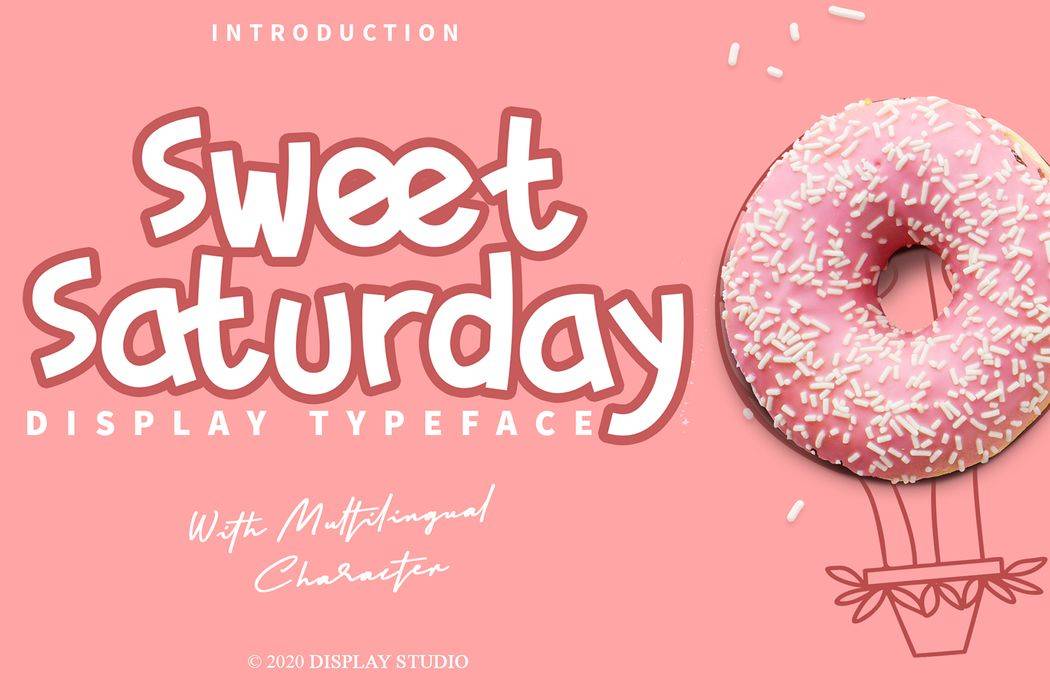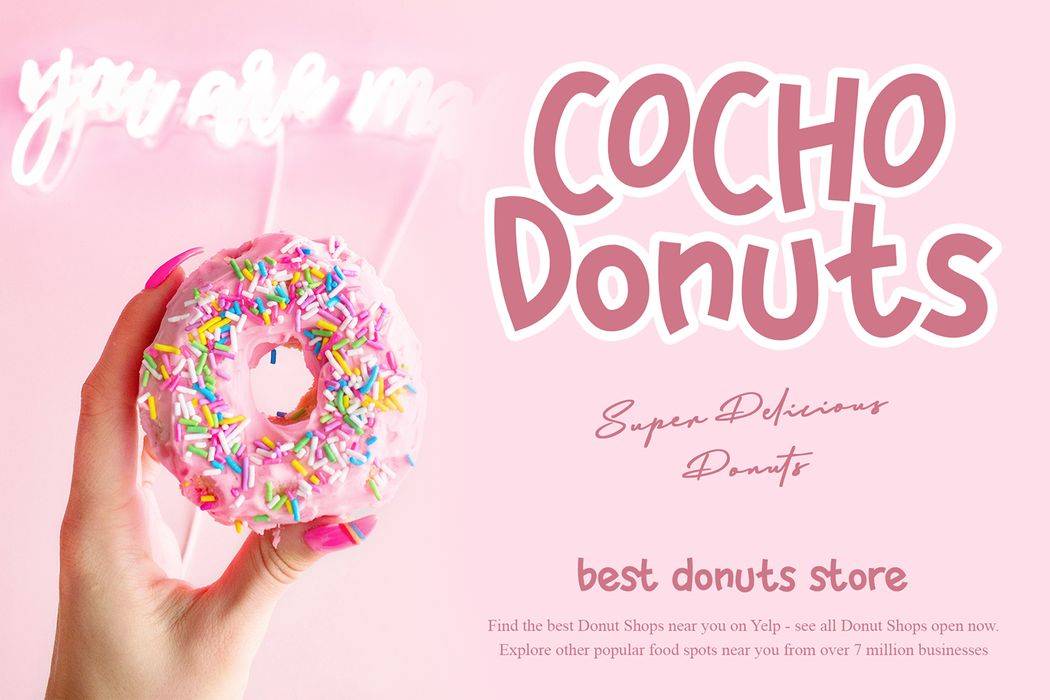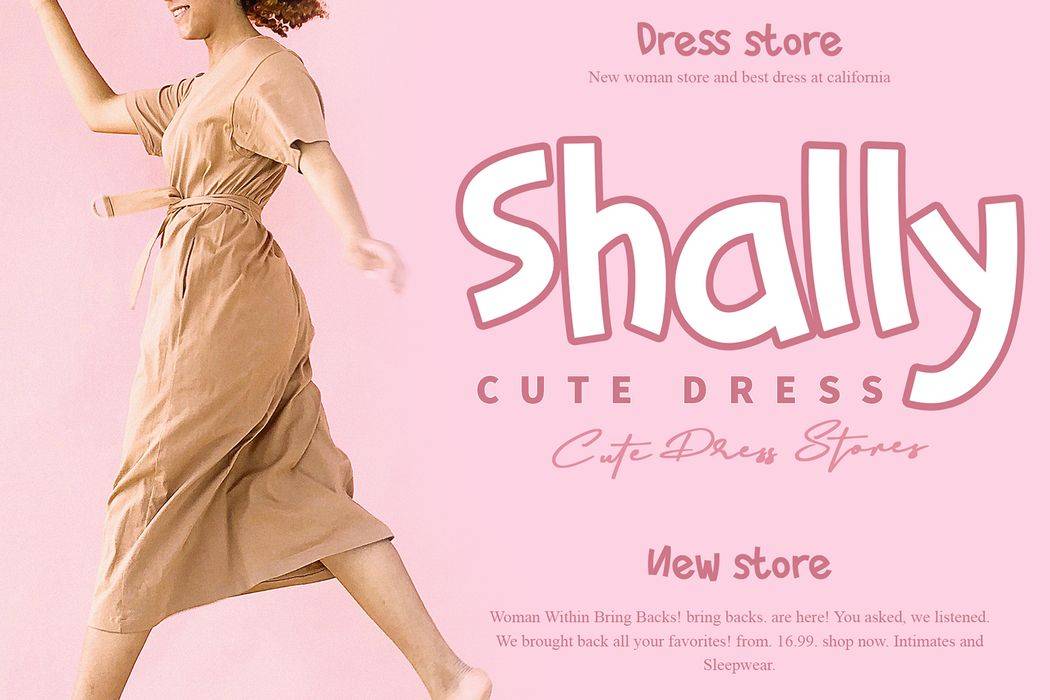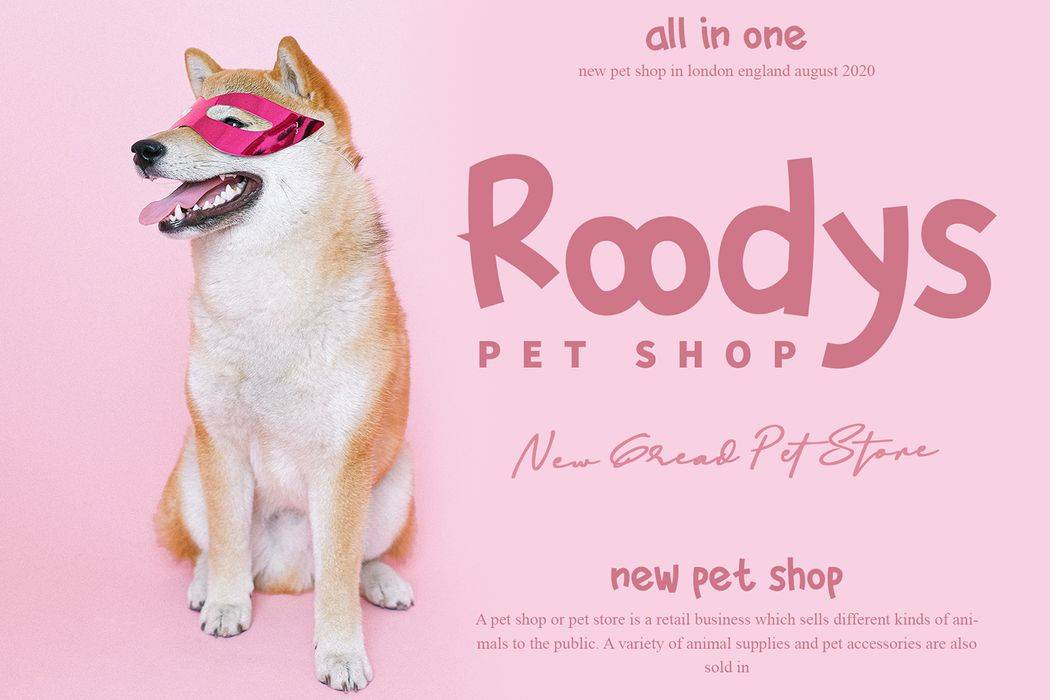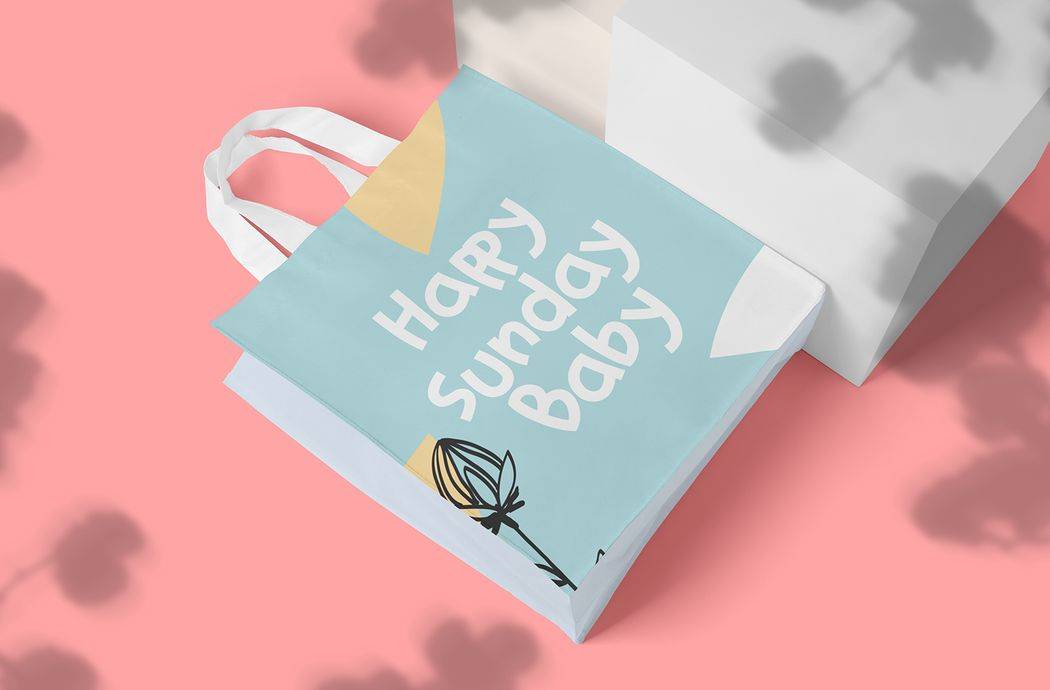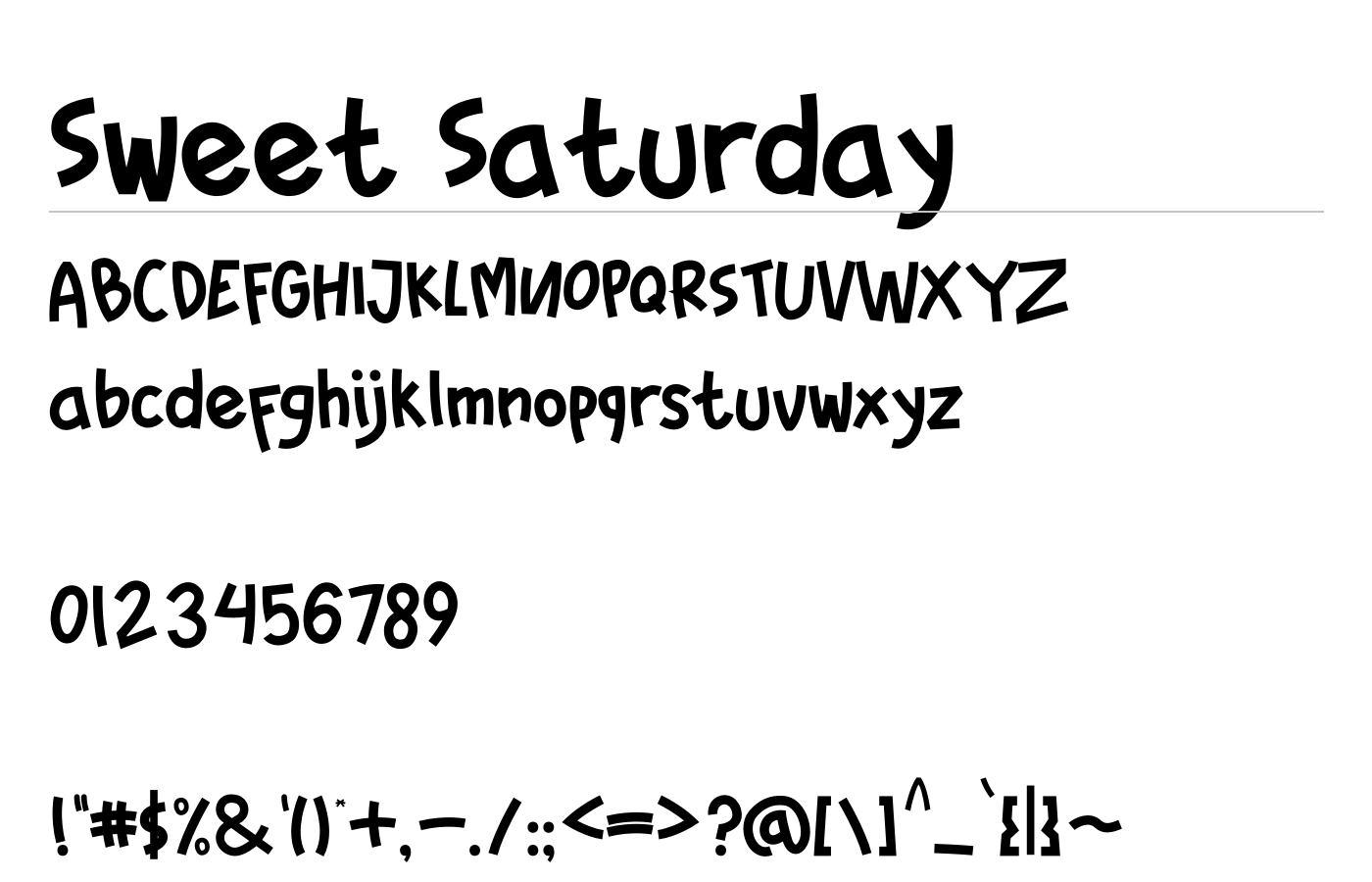
Sweet Saturday is a playful sans serif font with a lively, hand-drawn feel, featuring slightly irregular strokes and a casual, informal style. Its rounded, bold letterforms paired with a slightly condensed width make it perfect for fun, approachable branding, children's content, and friendly headlines where personality and warmth are key. This font works well for projects that want to convey spontaneity and cheerfulness without sacrificing clarity.
Sweet Saturday
About Sweet Saturday
| Font family | Sweet Saturday |